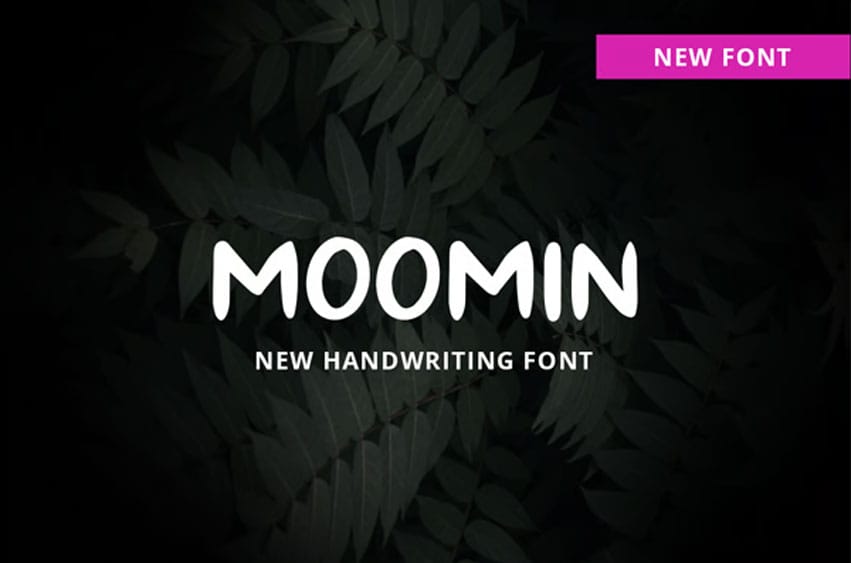
Moomin Font handwriting simple,creative,elegant,and ready to use.
It fits in headlines, logos, posters, flyers, invitations, name cards, branding materials, print media, editorial layouts, and many more.